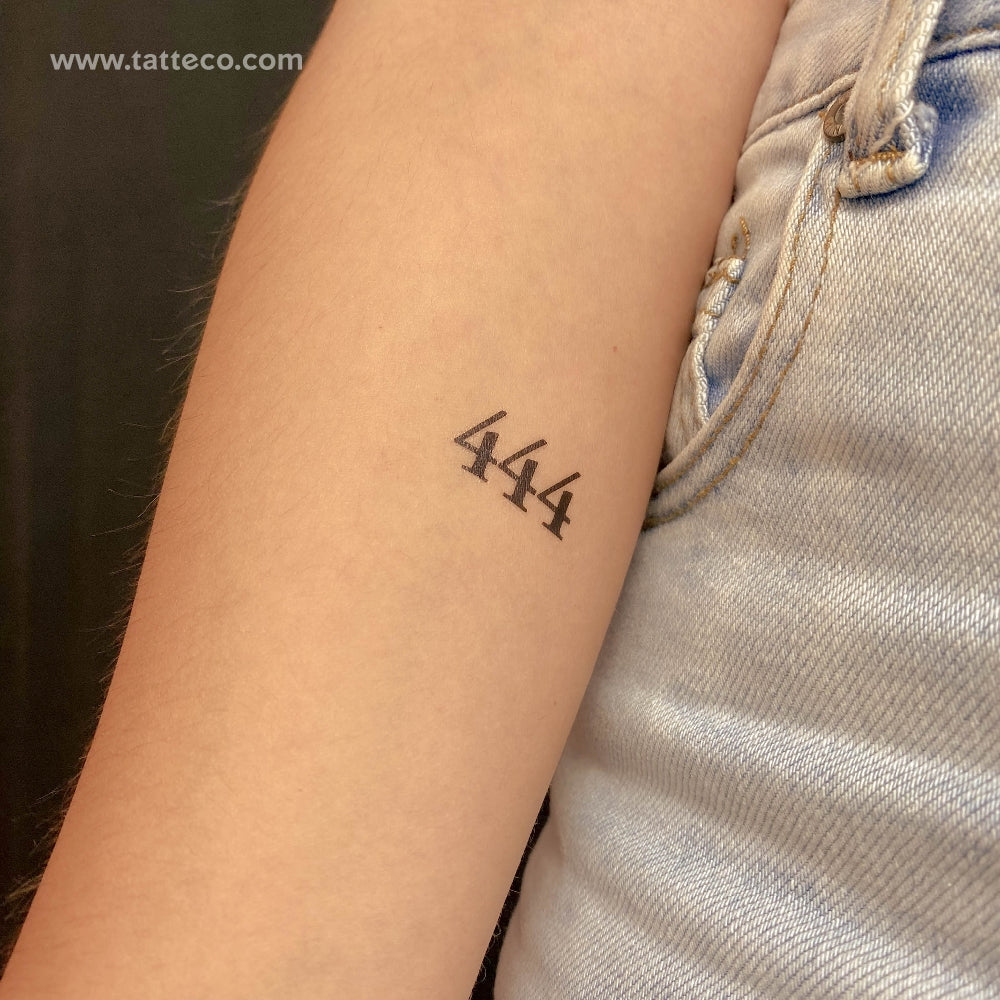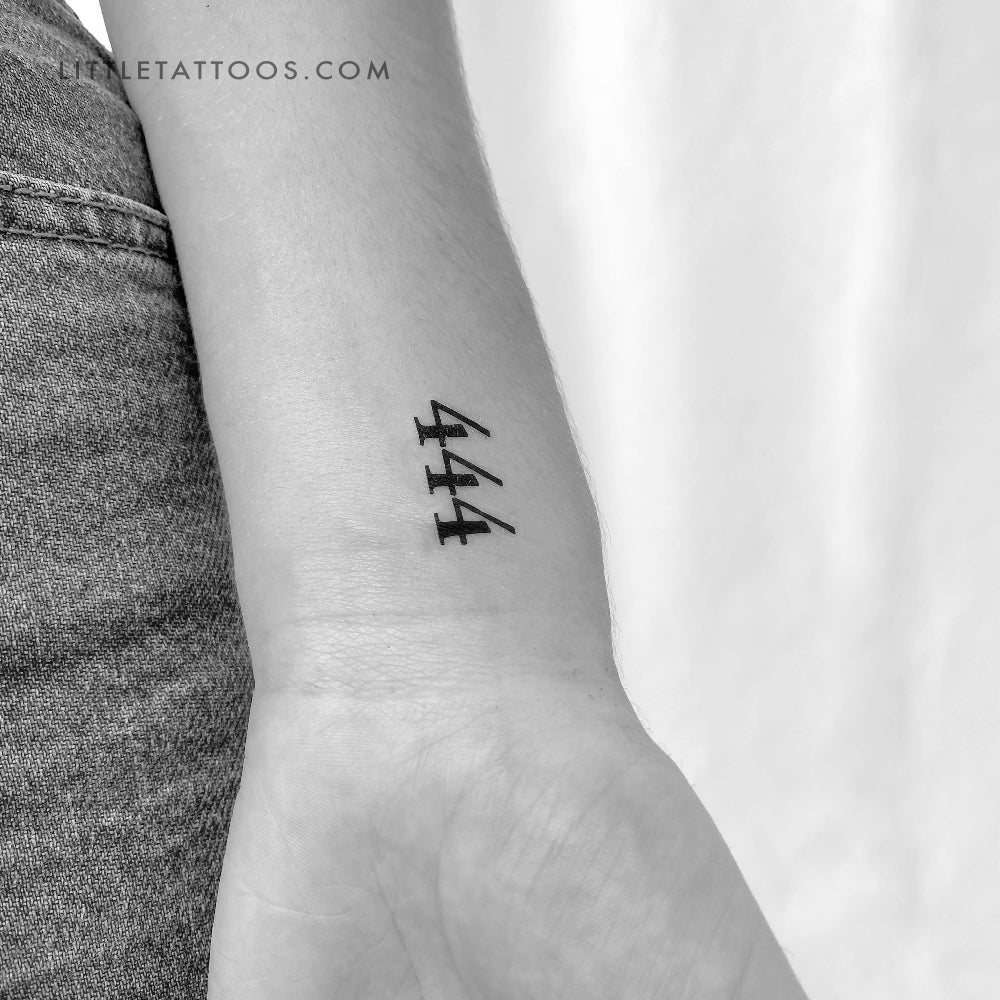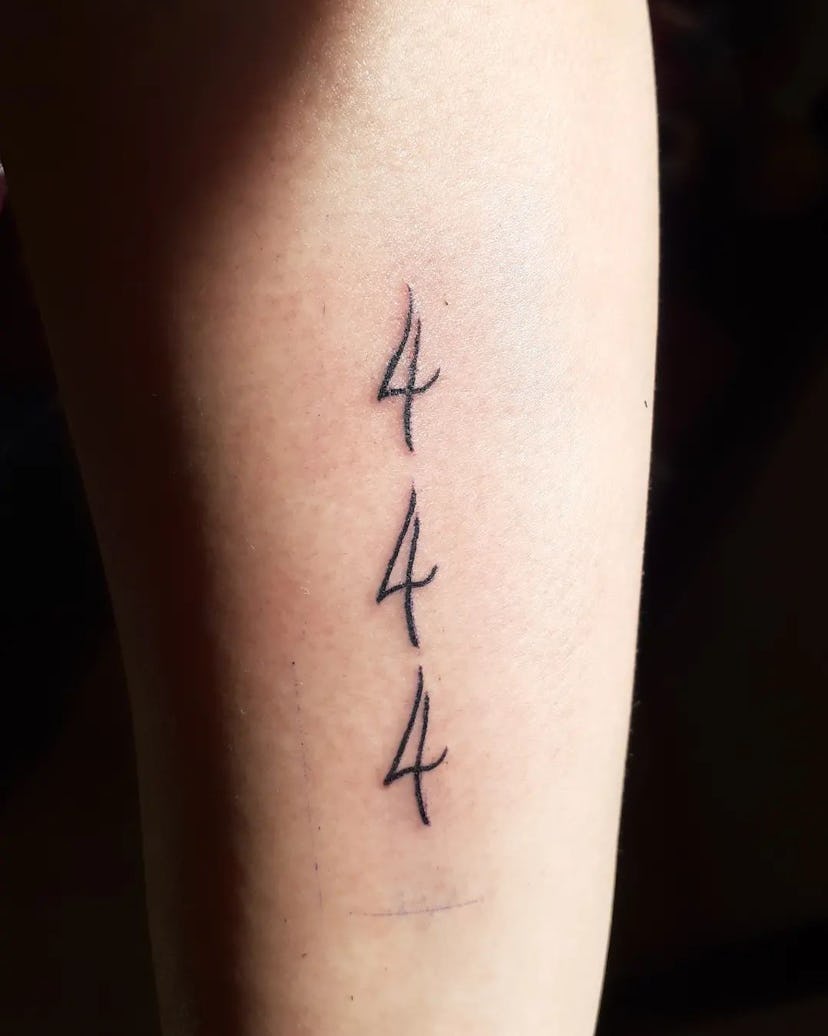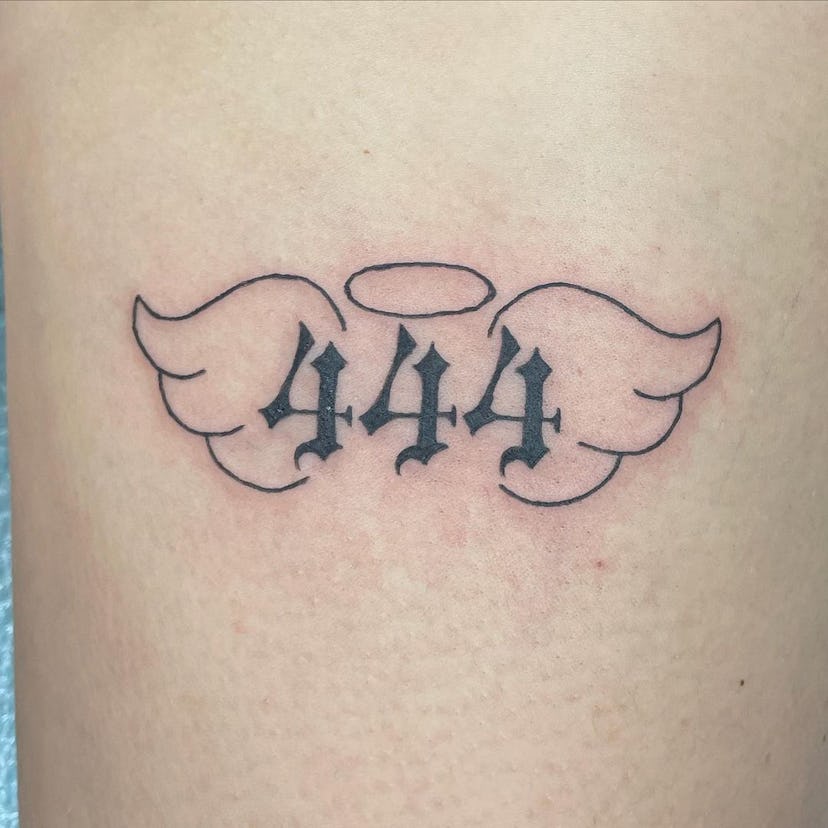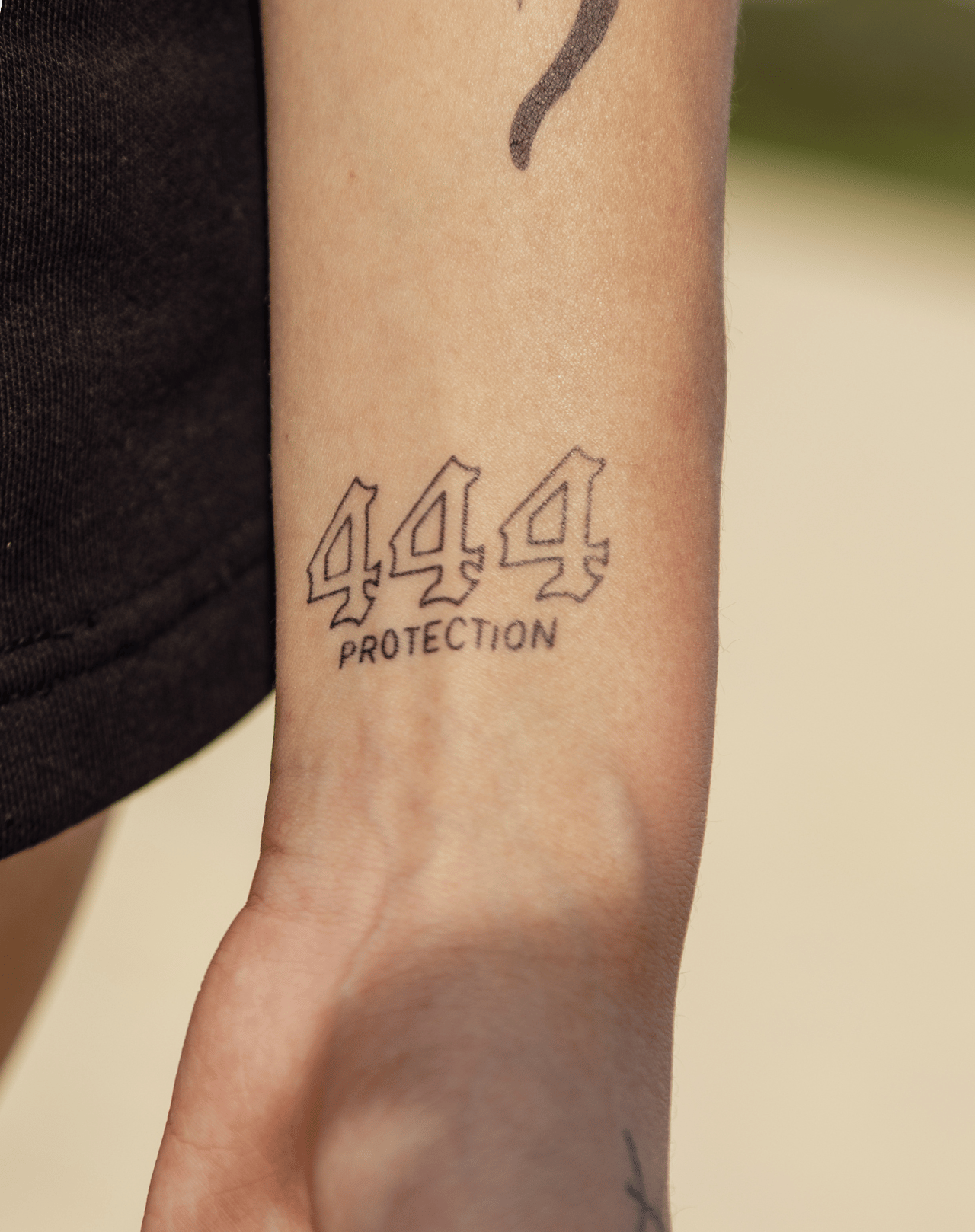
Tattoo 444 in Stylish Fonts You’ll Love
Looking for a bold yet meaningful tattoo? The 444″ lettering tattoo on the inner forearm is a subtle yet powerful choice—clean, symbolic, and perfect for those who want a quiet statement. Whether you go for sleek sans-serif or intricate script, tattoo 444 in different fonts lets you match the design to your personality and vibe.
Simple, strong, and full of meaning—444 in elegant fonts makes a lasting impression without overwhelming the skin.
Choose from modern, vintage, or bold styles to make tattoo 444 in different fonts truly yours.
Tattoo 444 in Stylish Fonts
Looking for a meaningful tattoo design? The number 444 carries a powerful spiritual message, often seen as a sign of balance and stability. When paired with creative typography, it becomes a striking visual symbol—like a tattoo 444 in different fonts—that blends personal meaning with artistic flair. This unique fusion makes it perfect for those who want both style and symbolism in their body art.
444 in tattoo form can reflect peace, renewal, and inner strength—especially when designed in elegant or bold fonts.
From minimalist to intricate, tattoo 444 in different fonts lets you express your energy and beliefs in a way that feels both personal and profound. A subtle angel number (set of 2) moment, right on your skin.
Tattoo 444 in Stylish Fonts Explained
Tattoo 444 in different fonts brings a unique spiritual vibe to the forearm, where the number symbolizes balance, harmony, and divine alignment. Whether in bold sans-serif or elegant script, each font choice reflects personal meaning and style—making it more than just ink, it’s a personal mantra worn on the skin. The placement on the forearm adds visibility and significance, turning a simple number into a living statement of belief and intention.
Choosing tattoo 444 in different fonts lets you express your inner world through design—each stroke carries meaning, from minimalist to intricate.
From clean lines to flowing scripts, tattoo 444 in different fonts offers a powerful way to wear your beliefs visibly, especially when placed on the forearm.
Tattoo 444 in Stylish Fonts
Each font of tattoo 444 brings a different energy — sharp, serene, or bold — letting you match your personality to the design.
From sleek sans-serif to vintage script, tattoo 444 in different fonts offers endless creative possibilities.
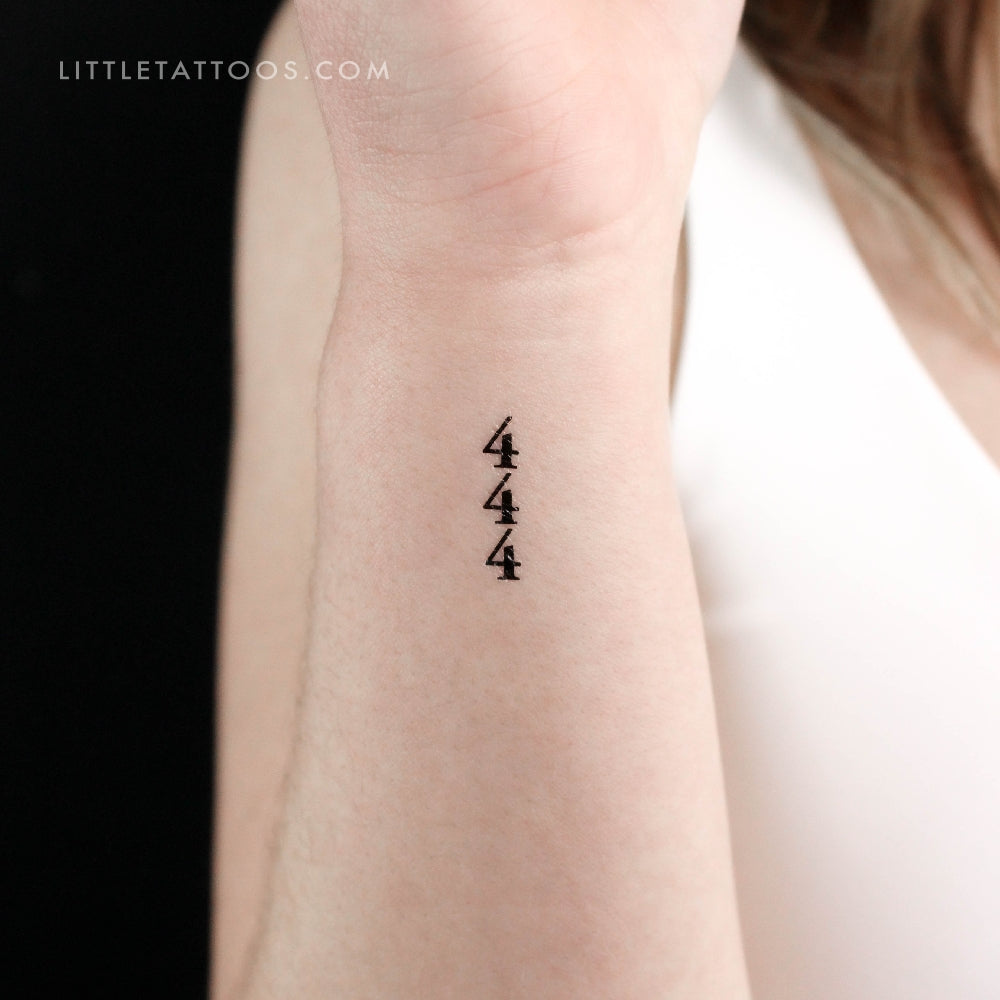
Tattoo 444 in Stylish Fonts You Can Try
Embrace the power of 444 with creative font choices—each one feels different and personal. From minimalist to intricate, the way you see this number changes with the style.
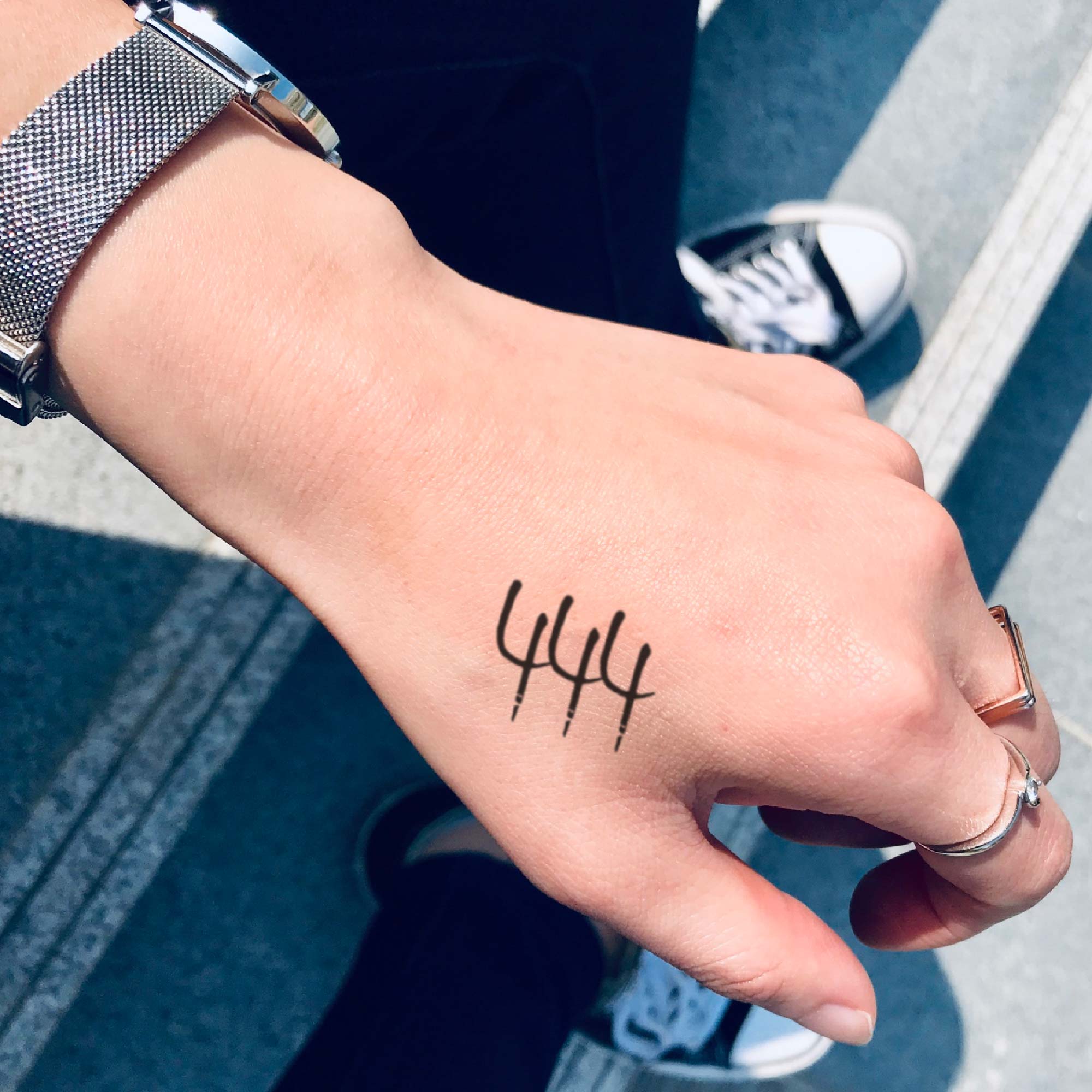
Tattoo 444 in Stylish Fonts
Looking for a unique way to express the energy of the angel number 444? Try a tattoo 444 in different fonts—each style brings a different vibe, from elegant script to bold modern designs. Whether you’re drawn to minimalist lines or intricate calligraphy, there’s a font that matches your personality. A perfect blend of symbolism and style, this temporary tattoo option lets you wear your spiritual meaning with confidence.
Each font of tattoo 444 tells a story—simple and powerful, like a whisper of protection and balance.
From sleek sans-serif to flowing cursive, the way 444 is styled changes how it feels—personal, grounded, or even mystical.
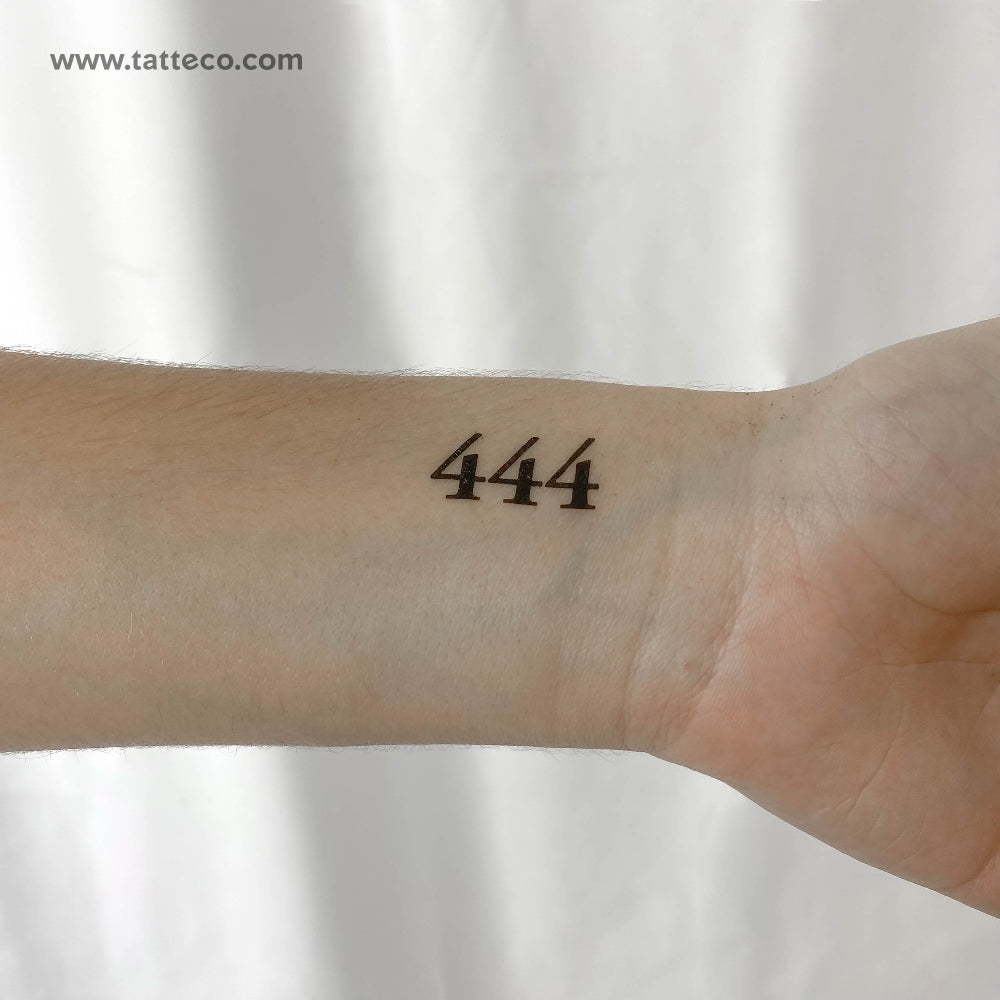
Tattoo 444 in Stylish Fonts
Looking for a unique way to wear the power of 444? Try a tattoo 444 in different fonts—each style carries its own energy. From elegant script to bold block letters, these designs bring the angel number to life. A perfect blend of symbolism and style, especially when paired with an Angel Number Temporary Tattoo for a temporary yet meaningful touch.
Each font of tattoo 444 speaks a different language—minimalist, mystical, or modern. Choose what resonates with your vibe.
From cursive to geometric, tattoo 444 in different fonts adds depth and personality to your personal expression.
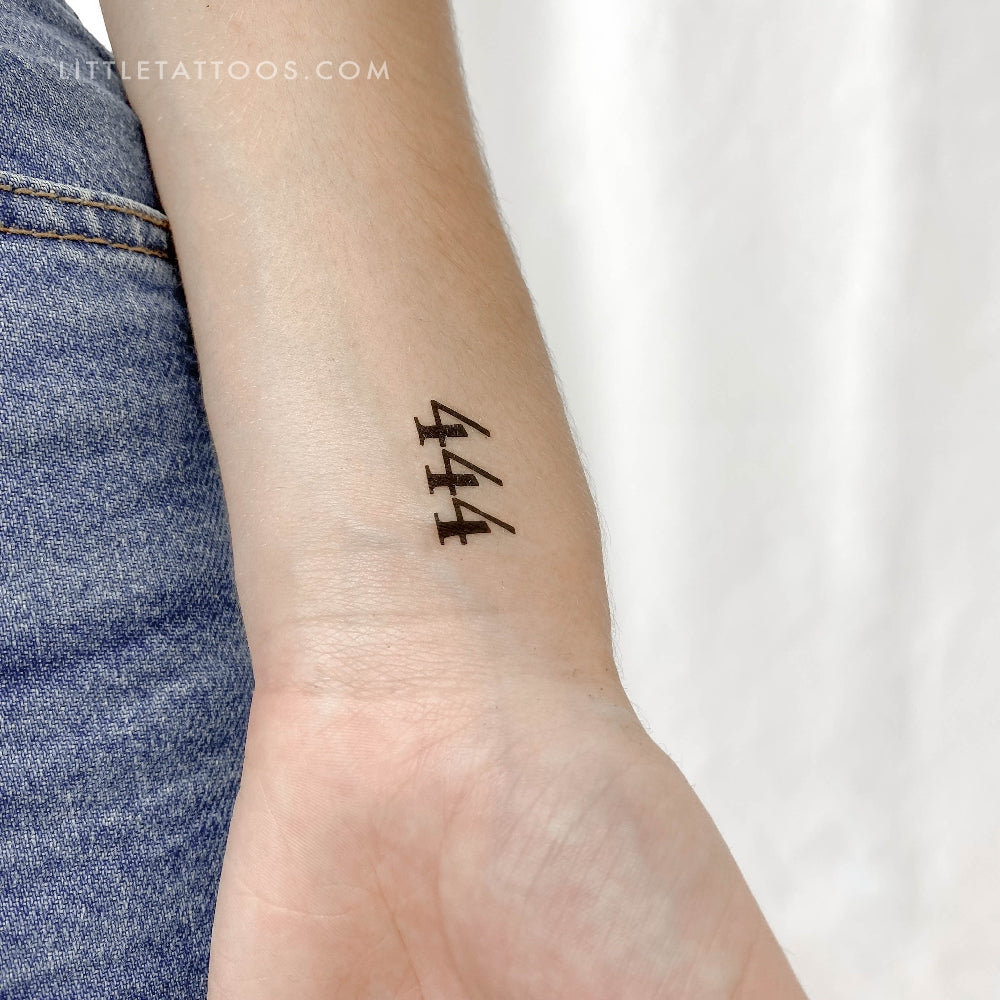
Tattoo 444 in Stylish Fonts
444 in bold fonts signals strength and clarity, while script versions feel more mystical and personal. This subtle shift in style can deepen the emotional impact of the tattoo.
Choosing the right font for your 444 tattoo helps align the design with your personal energy and intention.